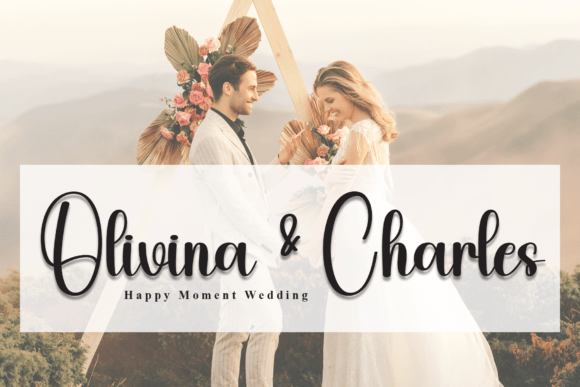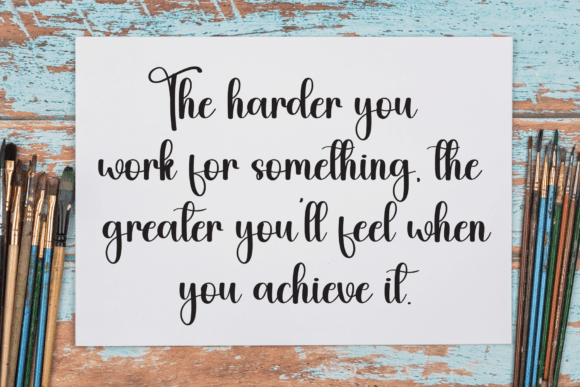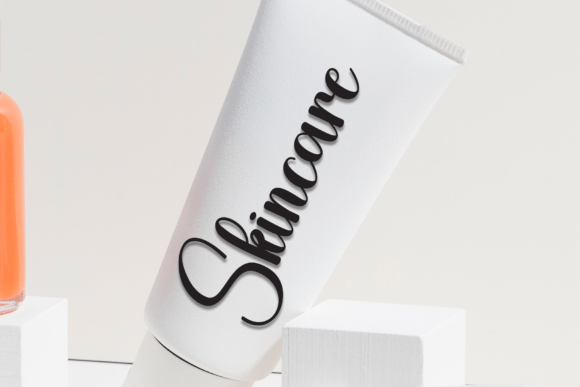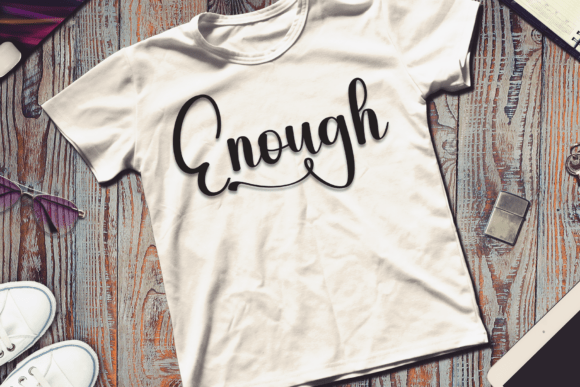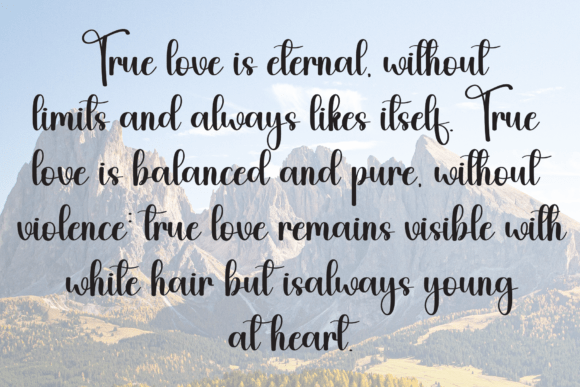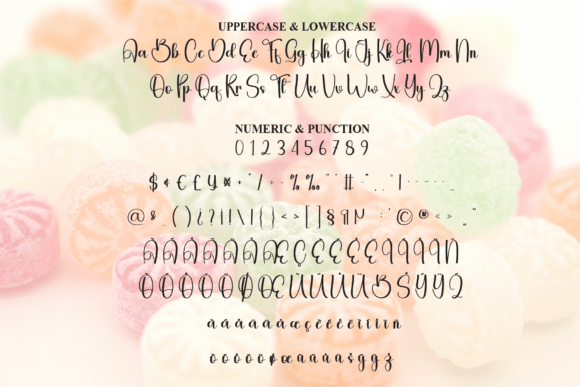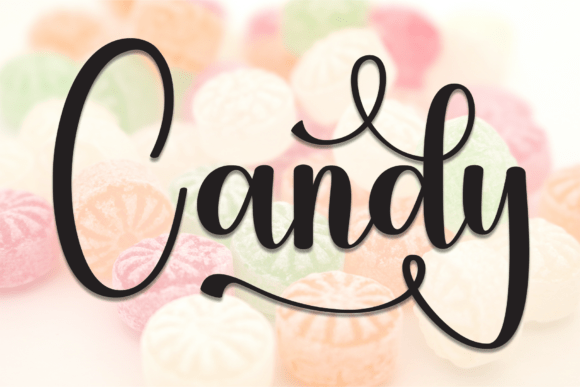
Candy Font: Elevate Your Designs with Elegance and Charm
In the world of typography, fonts play a crucial role in conveying the tone and personality of a design. For designers and crafters looking to add a touch of sophistication and elegance to their work, Candy Font is an excellent choice. This stylish handwritten script font is designed to exude charm and refinement, making it perfect for a variety of applications, from branding and invitations to stationery and more.
The Characteristics of Candy Font
Candy Font is distinguished by its fluid, graceful strokes that give it a natural and effortless look. The smooth curves and flowing lines create a sense of movement and elegance, adding a personal touch to any design. This font’s refined appearance makes it suitable for projects that require a high level of sophistication, such as luxury branding, formal invitations, and premium stationery.
Perfect for Branding
Branding is all about creating a memorable and impactful identity for a business or product. The right font can make a significant difference in how a brand is perceived by its audience. Candy Font, with its elegant and charming appearance, is an excellent choice for branding projects. It can add a touch of luxury and sophistication to a brand’s logo, packaging, or marketing materials, helping to create a lasting impression on customers.
Ideal for Invitations and Stationery
Invitations and stationery are areas where Candy Font truly shines. Its beautiful, handwritten script style adds a personal and intimate touch to any invitation or stationery piece, making it perfect for weddings, parties, and other special occasions. Whether you’re a designer creating custom stationery for clients or a crafter looking to add a personal touch to your own correspondence, Candy Font is an excellent choice.
Key Features of Candy Font
- Fluid, graceful strokes: Give Candy Font its elegant and charming appearance.
- Smooth curves and natural flow: Create a timeless and refined look that’s perfect for a variety of design applications.
- Handwritten script style: Adds a personal and sophisticated touch to any design.
- Versatile: Suitable for branding, invitations, stationery, and more.
Tips for Using Candy Font
To get the most out of Candy Font, consider the following tips:
- Pair with complementary fonts: Combine Candy Font with simpler fonts to create visual interest and hierarchy in your designs.
- Use for headlines and titles: Take advantage of Candy Font’s elegant appearance by using it for headlines and titles, and a simpler font for body text.
- Experiment with colors and textures: Enhance the beauty of Candy Font by experimenting with different colors and textures that complement its elegant style.
Candy Font is a versatile and elegant handwritten script font that’s perfect for designers and crafters looking to add a touch of sophistication and charm to their work. With its fluid strokes, smooth curves, and natural flow, it’s an excellent choice for a variety of design applications, from branding and invitations to stationery and more. By incorporating Candy Font into your designs, you can create beautiful, timeless pieces that are sure to impress.
Whether you’re a professional designer or a crafter looking to elevate your work, Candy Font is an excellent addition to your font collection. Its elegant and charming appearance is sure to make your designs stand out and leave a lasting impression on your audience.